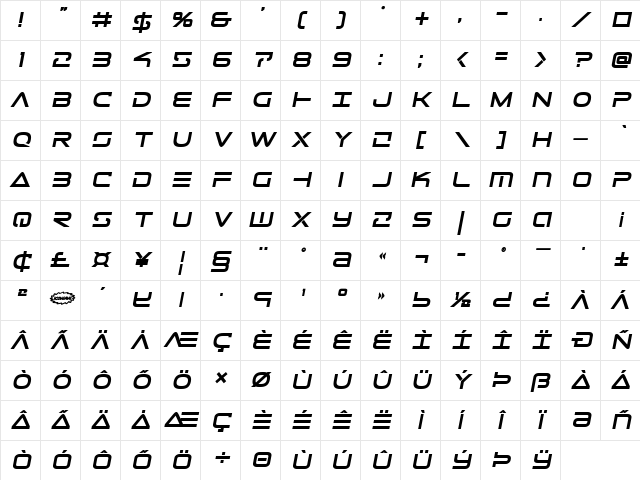
Tele-Marines is a composed and adaptable typeface that performs quietly and consistently across a wide range of design contexts. The slanted form adds forward momentum and visual energy. Its bold stroke weight gives it real presence on the page.